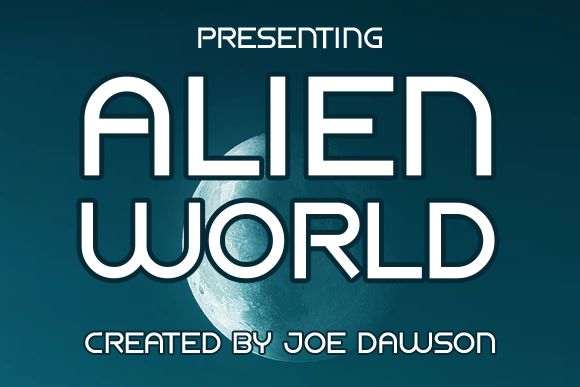
Journey to the Cosmic Frontier: Alien World Font - Your Portal to Stellar Designs
In a cosmic realm where creativity intersects with boundless imagination, Alien World Font emerges as a stellar display font, ready to launch your designs into the stratosphere. Inspired by the vast expanse of the universe and the allure of extraterrestrial wonders, this font is your passport to a world of limitless possibilities.
Unleash the Enigmatic Charm of Alien World Font:
* **Cosmic Elegance:** Alien World Font captivates with its retro sci-fi aesthetics, evoking a sense of mystery and intrigue. Allow your designs to shimmer with unearthly beauty, captivating your audience with every stroke.
* **Galactic Versatility:** Spanning across a multitude of applications, Alien World Font is the cosmic chameleon you've been seeking. From eye-catching posters that traverse the cosmos to websites that exude interstellar elegance, this font adapts seamlessly, ensuring your designs transcend boundaries.
* **Futuristic Edge:** Propel your designs into the future with Alien World Font's sharp, geometric lines and dynamic curves. This font radiates an aura of innovation, pushing the boundaries of creativity and leaving your audience in awe of your design prowess.
* **Limitless Customization:** Alien World Font's malleability allows you to craft a universe of unique design possibilities. Adjust spacing, letterforms, and more to forge a truly bespoke typographic experience. Let your imagination soar and watch your designs take on a life of their own.
Unlock the Secrets of Alien World Font:
* **Craft Stellar Logos:** Design logos that radiate an extraterrestrial allure. Alien World Font's bold presence and captivating details will make your brand shine brighter than a supernova, attracting attention and leaving a lasting impression.
* **Unleash Cosmic Posters:** Create posters that transport viewers to distant galaxies. Alien World Font's retro sci-fi charm will infuse your posters with a sense of wonder and intrigue, inviting audiences to embark on an interstellar journey through your designs.
* **Forge Enchanting Websites:** Build websites that exude an otherworldly charm. Alien World Font's futuristic aesthetics will immerse visitors in a digital realm unlike any other, leaving them captivated by your design brilliance.
* **Design Mesmerizing Social Media Graphics:** Captivate your social media audience with eye-catching graphics adorned with Alien World Font. This font's captivating details and sharp lines will elevate your posts, stories, and ads, ensuring they stand out in the vast digital cosmos.